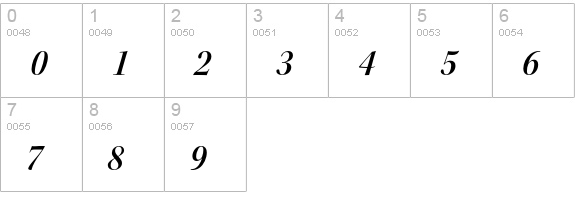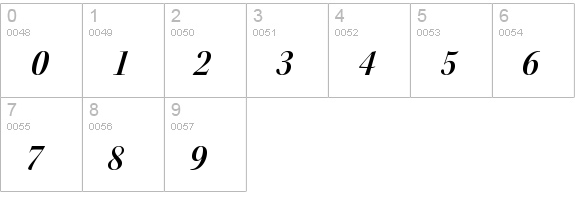
Kepler Std Semibold Semicondensed Italic Display Font Details
Kepler Std Semibold Semicondensed Italic Display is a sub-bold, structured, italic variant in the Kepler typeface family \xE2\x80\x94 well suited to sub-headlines and emphasised passages.
Kepler Std Semibold Semicondensed Italic Display font is a remarkable typeface that exudes confidence and sophistication. Its semibold weight adds a touch of boldness, while its semicondensed design provides a compact and space-saving layout. The italic style adds a hint of elegance and fluidity to any text. This font is perfect for various design projects, such as headlines, titles, logos, and branding materials. Its versatility allows it to seamlessly fit into both modern and traditional designs, making it a valuable asset for designers looking to make a statement. What sets Kepler Std Semibold Semicondensed Italic Display font apart is its impeccable legibility, even at smaller sizes. This makes it an excellent choice for display purposes, where clarity is essential. Whether used in print or digital media, this font will captivate readers and leave a lasting impression. The best part is that Kepler Std Semibold Semicondensed Italic Display font is freely available to download at FontsMarket.com. This means that designers and enthusiasts can access this exceptional font without any cost, making it a fantastic option for budget-conscious projects. FontsMarket.com is a reliable source for high-quality fonts, ensuring a seamless and hassle-free downloading experience. In summary, Kepler Std Semibold Semicondensed Italic Display font combines the perfect balance of boldness, compactness, and elegance. Its versatility and legibility make it an excellent choice for various design projects. With its free availability at FontsMarket.com, this font is a must-have for any designer looking to elevate their creations.